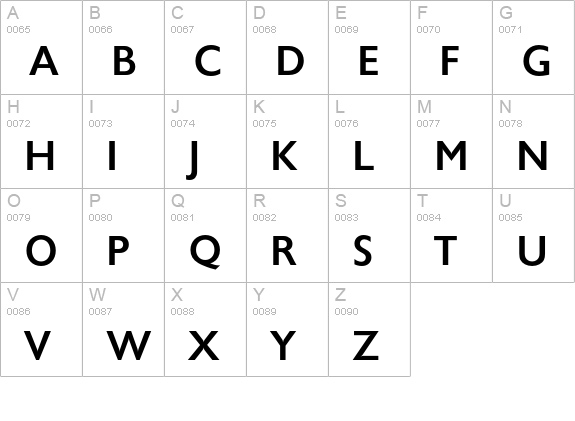
Chantilly-Medium Font Details
Chantilly-Medium is a balanced, medium-weight variant in the Chantilly typeface family \xE2\x80\x94 well suited to sub-headlines, navigation, and balanced editorial work.
Chantilly-Medium is a sophisticated and elegant font that exudes a sense of timeless beauty and modern charm. Its graceful curves and stylish letterforms make it the perfect choice for a wide range of design projects, from invitations to branding materials. The medium weight of this font strikes a perfect balance between readability and visual impact, making it versatile and suitable for both headlines and body text. What sets Chantilly-Medium apart is not only its exquisite design but also the fact that it is available for free download at FontsMarket.com. This means that you can easily access this high-quality font without any cost, making it a valuable addition to your font collection. Whether you're a designer looking for a classy typeface or a business owner in need of a sophisticated font for your marketing materials, Chantilly-Medium is sure to impress with its timeless beauty and effortless elegance. Download it today and elevate your designs with this stunning typeface.